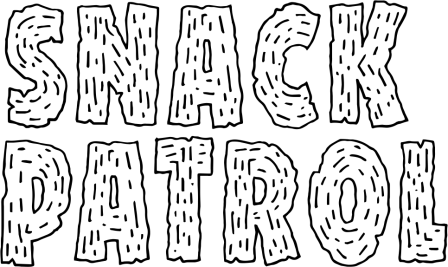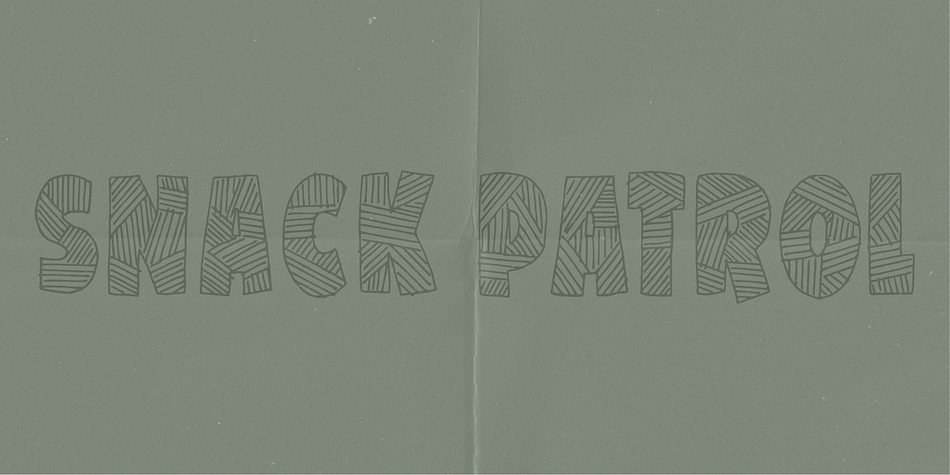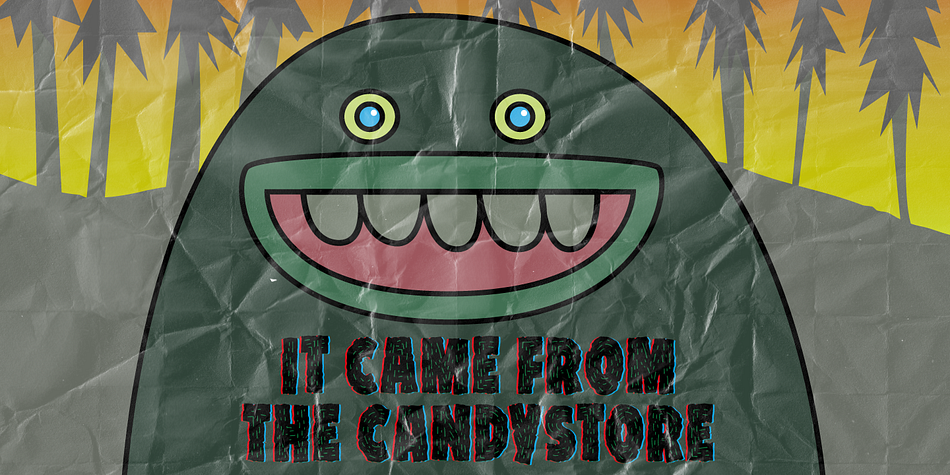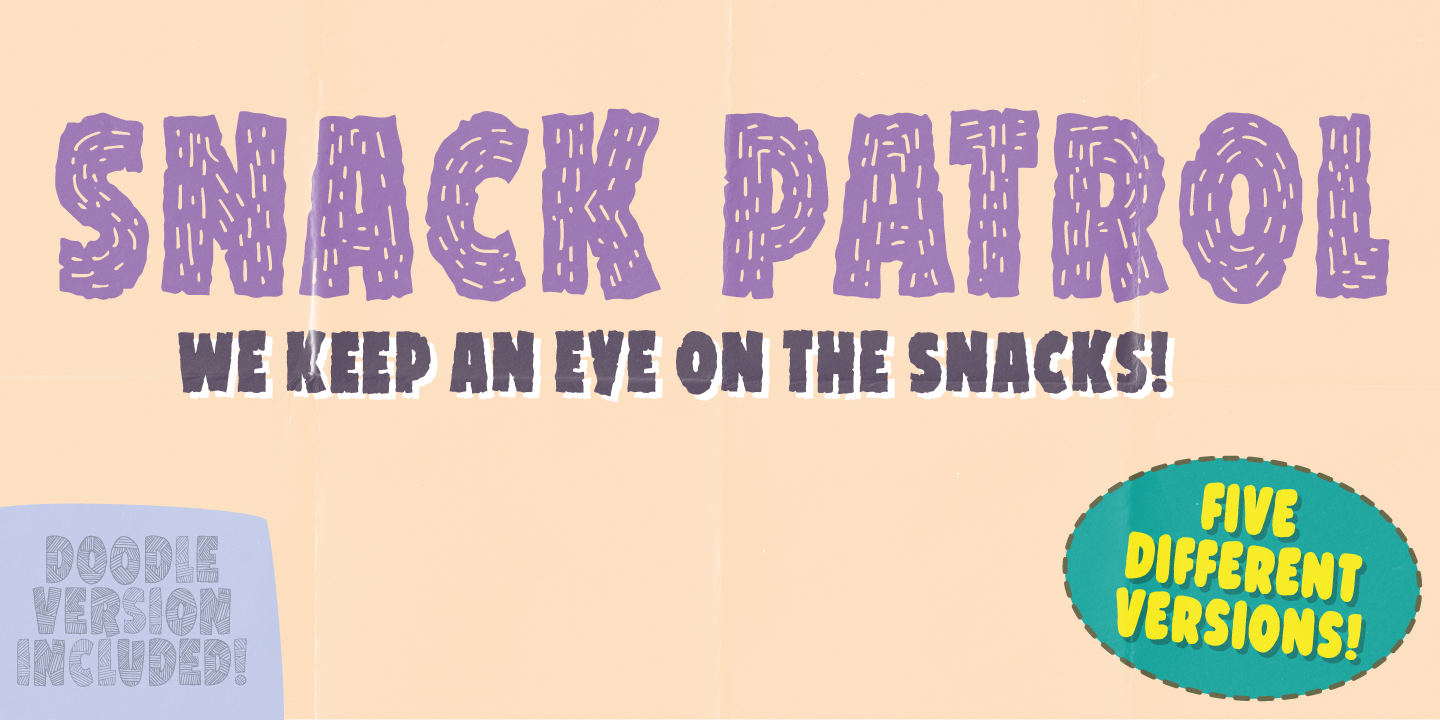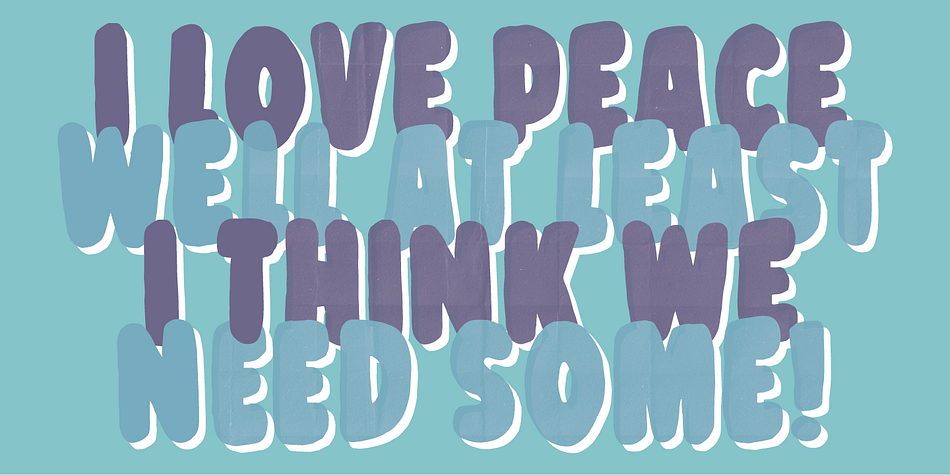
Snack Patrol is a hand display font family. This typeface has five styles and was published by Pizzadude.dk.
The Snack Patrol keeps an eye on your candy! It also keeps an eye on your design!
5 different versions for you to play around with - and, of course, they all have different upper- and lowercase along with ligatures for double letters!